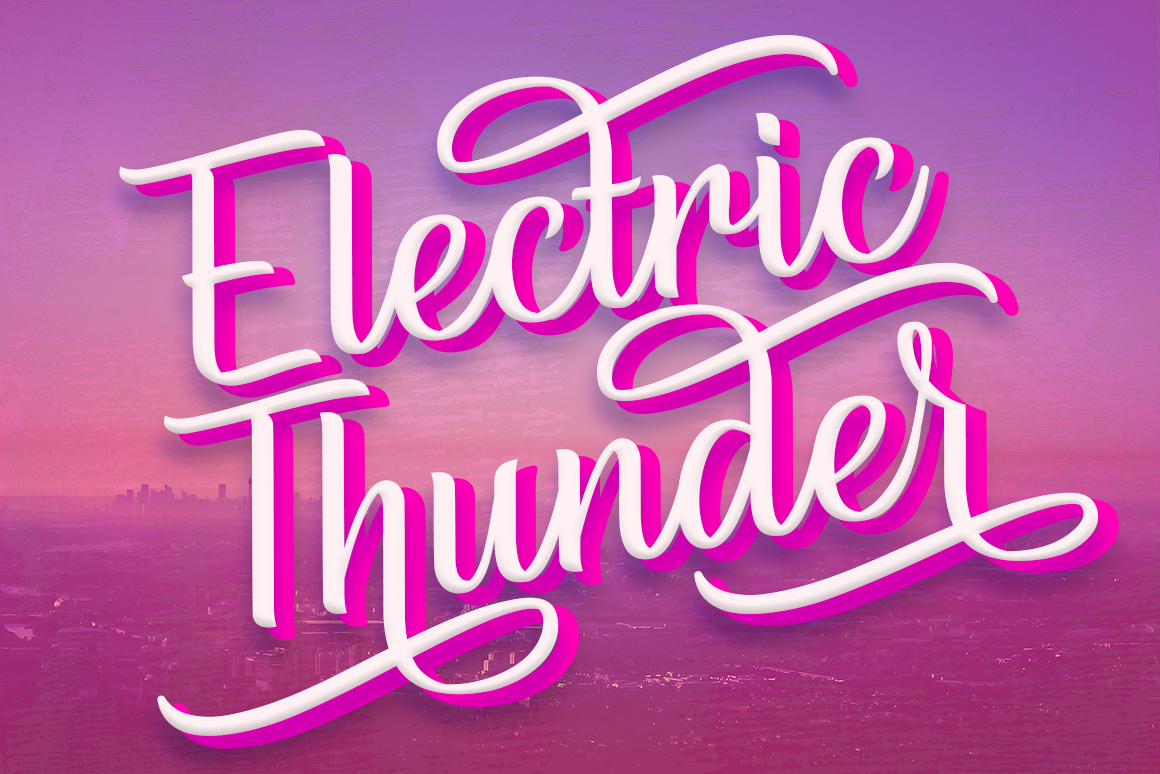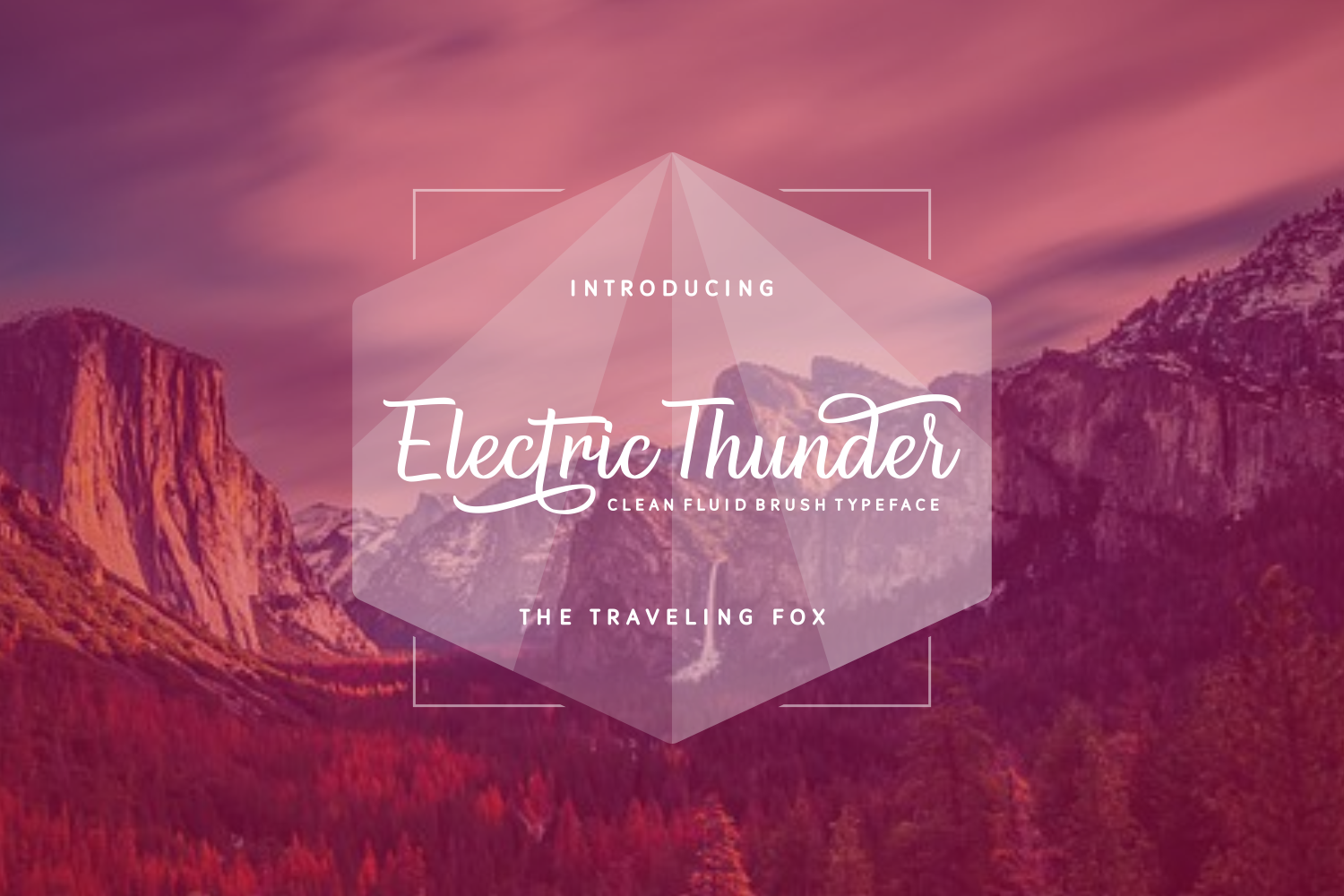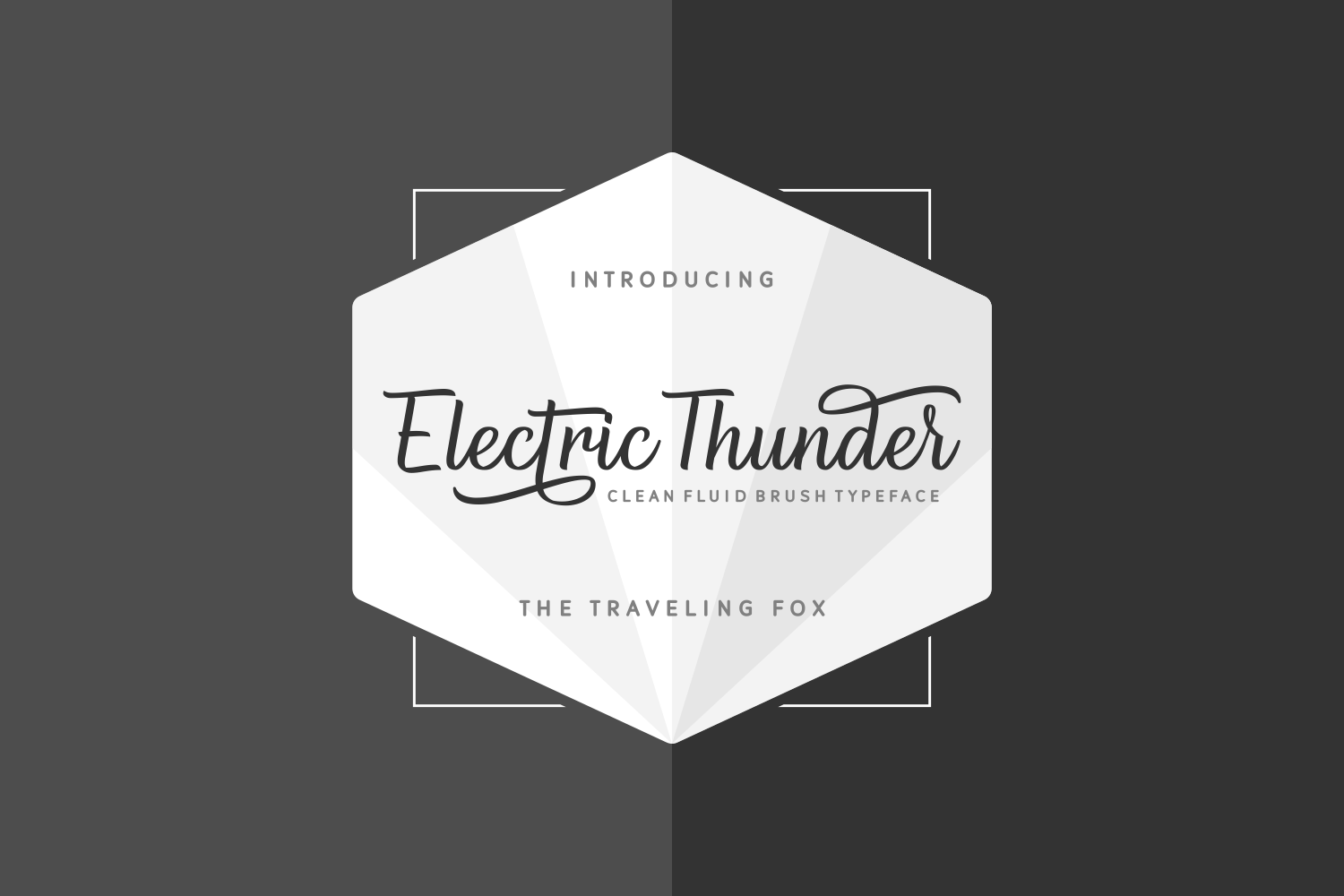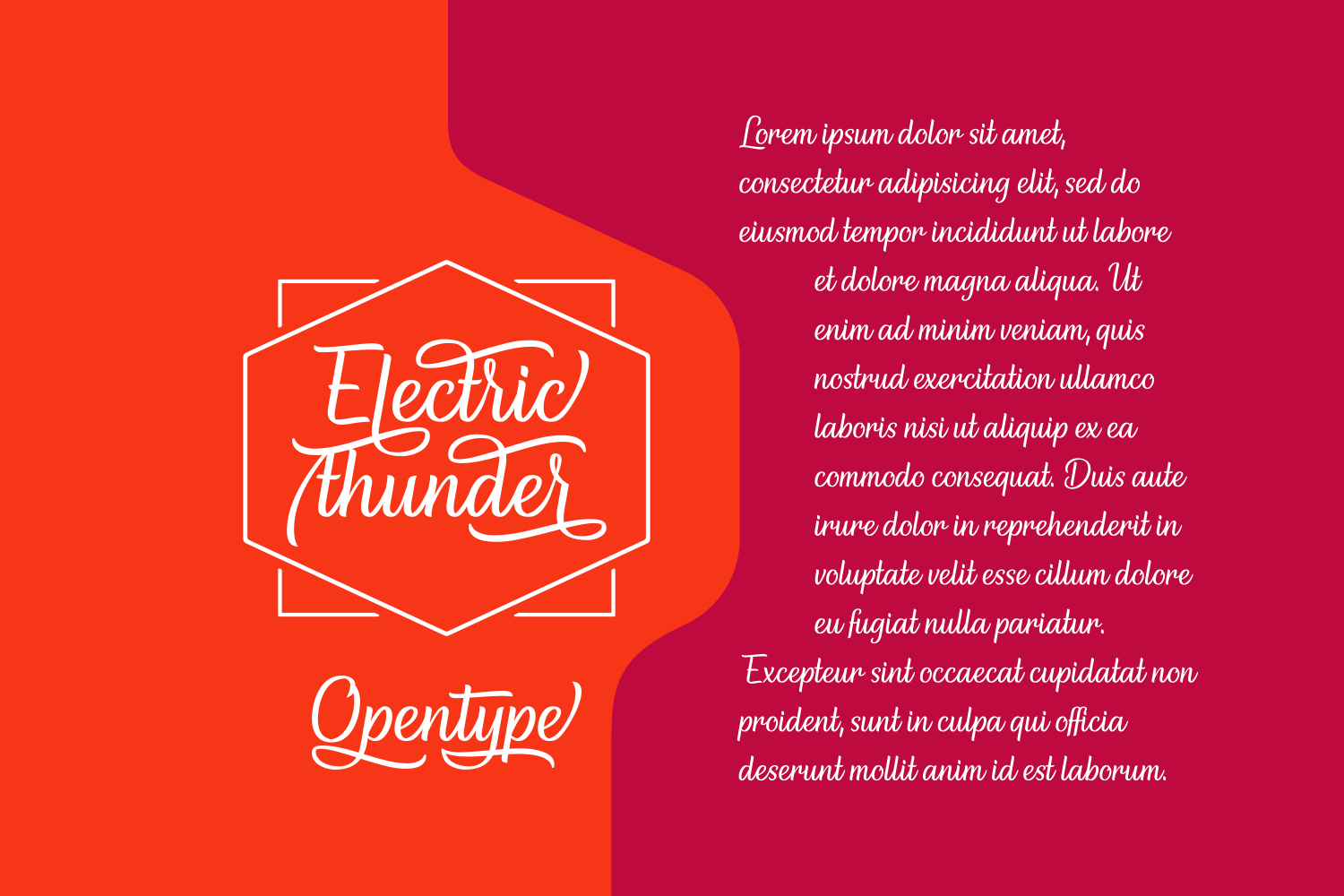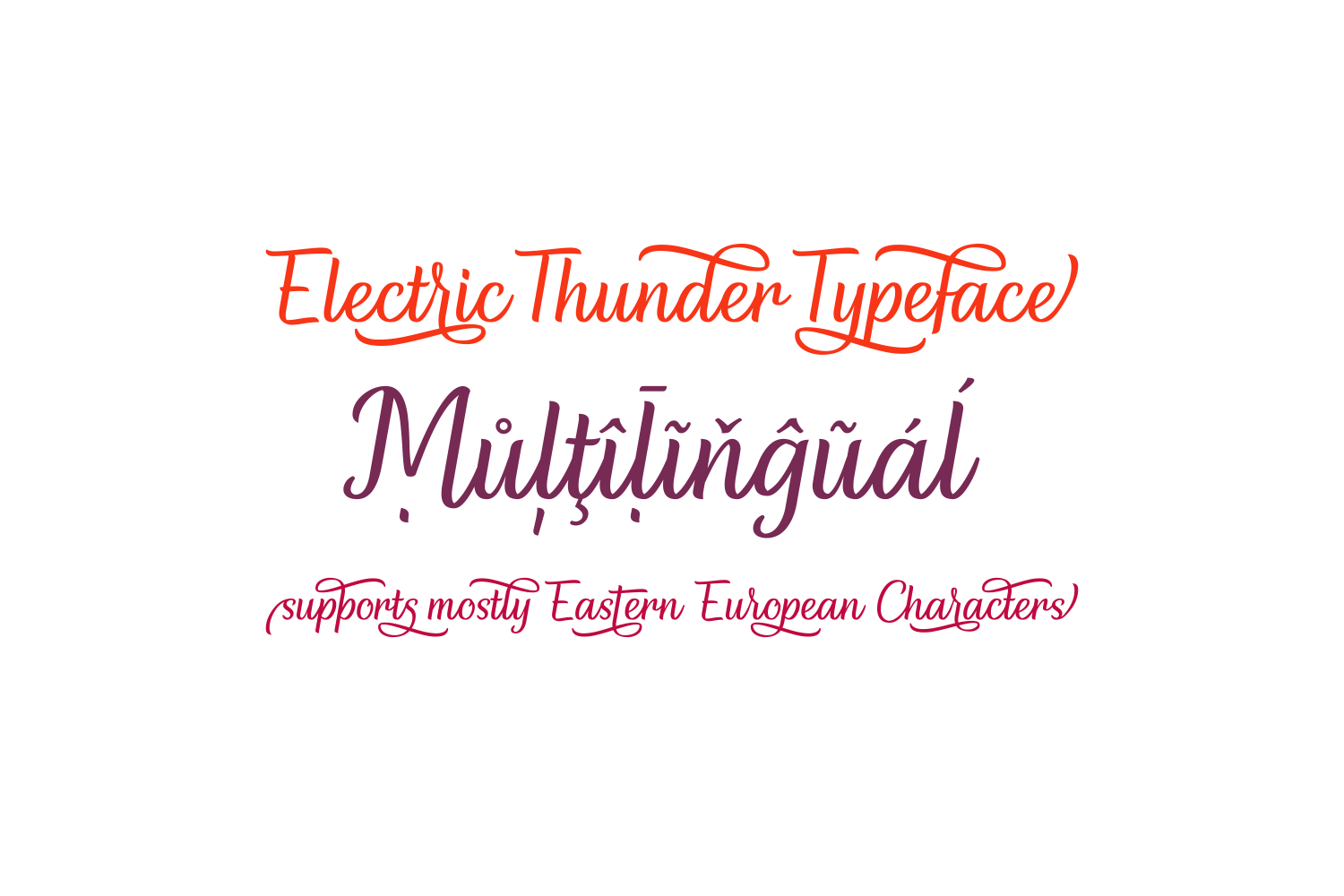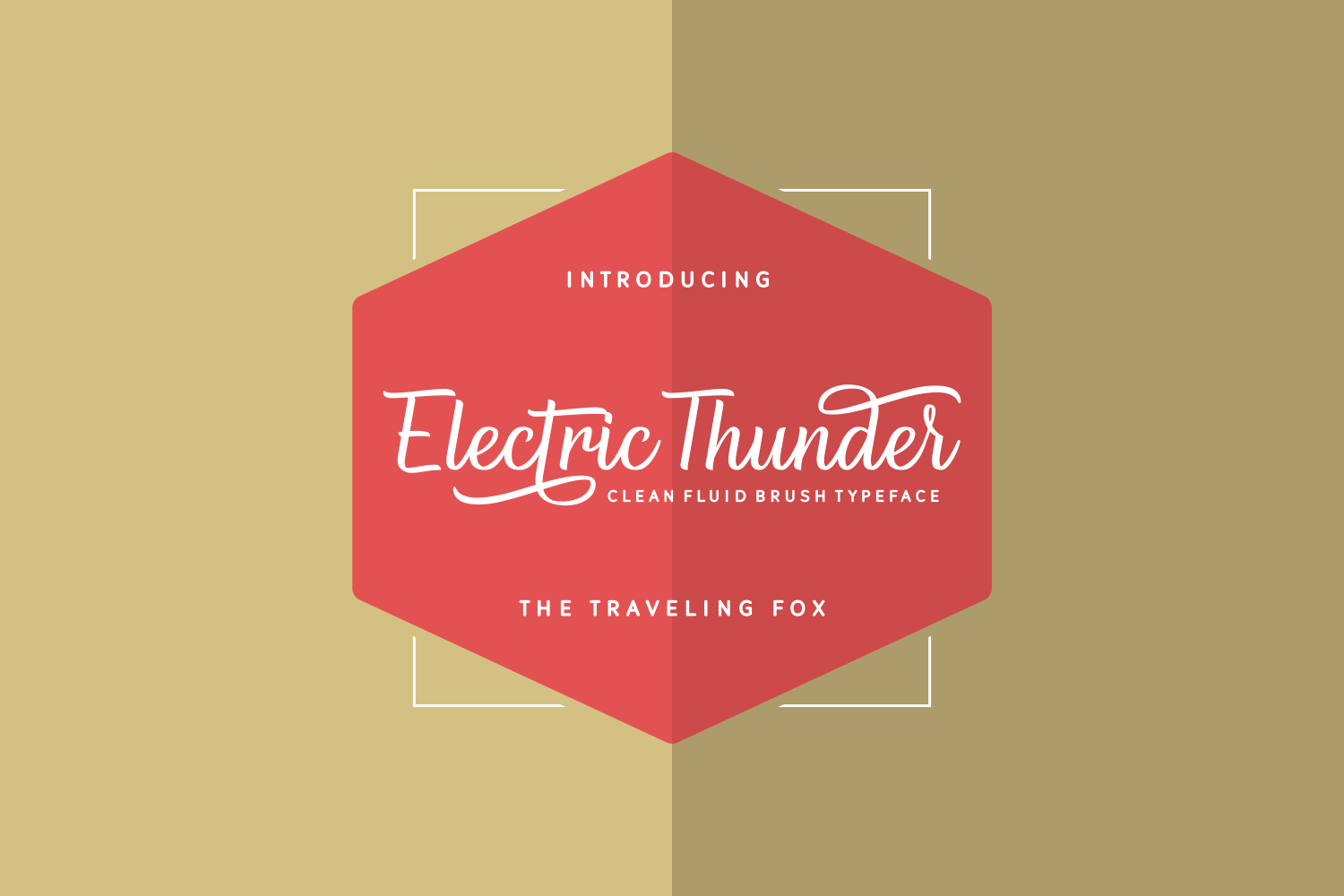
Electric Thunder Font
About Electric Thunder Font
Electric Thunder is a fluid script that is inspired by natural flowing movements.
It features over 630 unique glyphs and is packed with stunning alternates, allowing you to create endless combinations and variations.